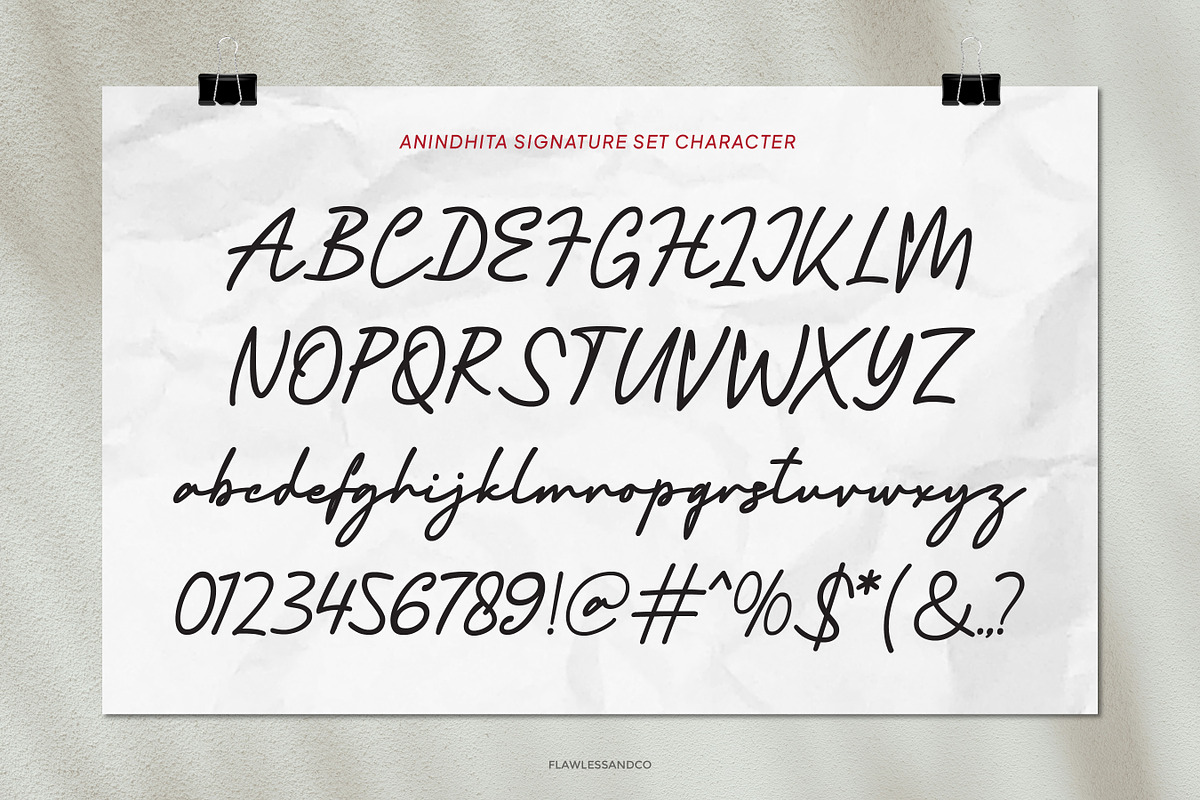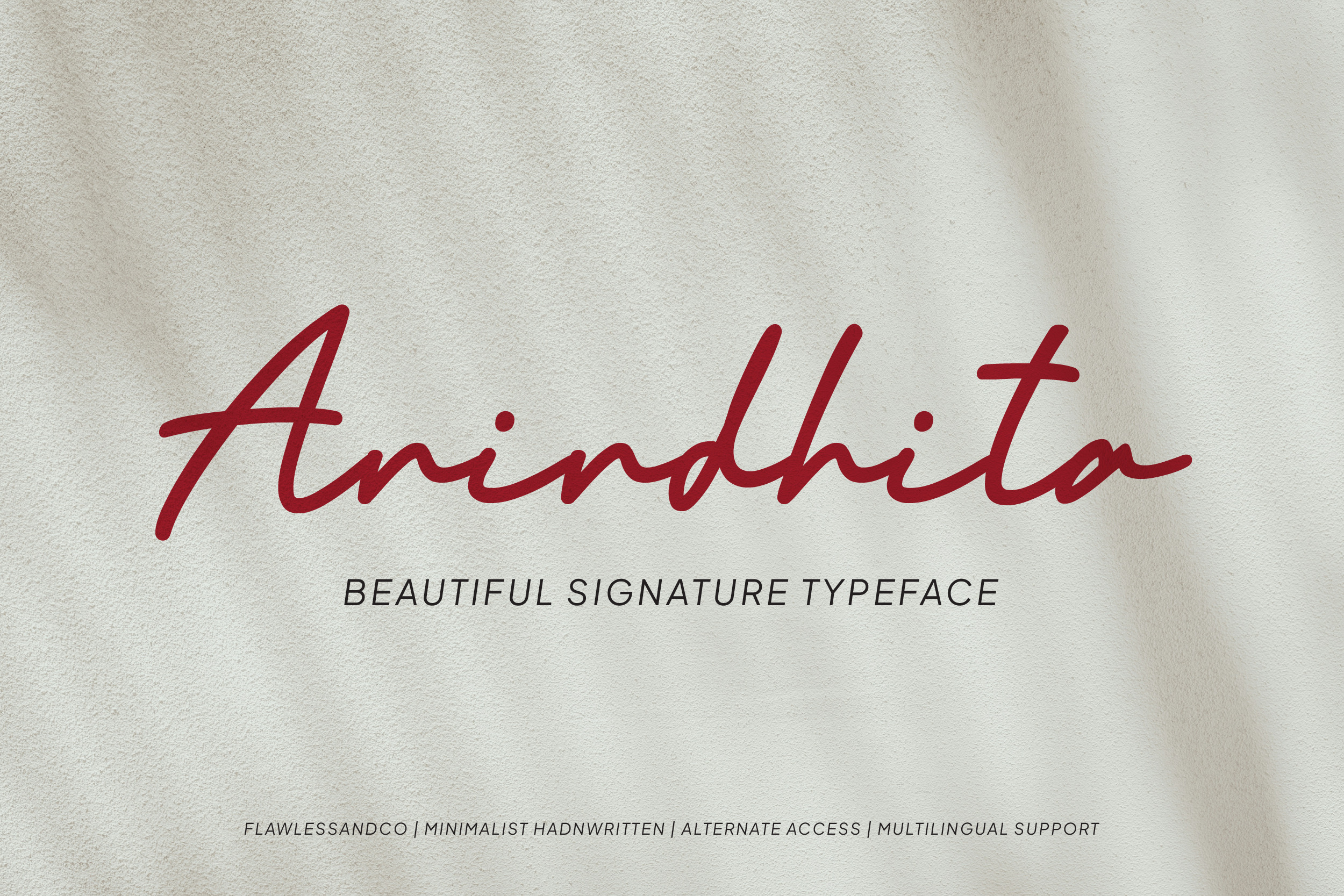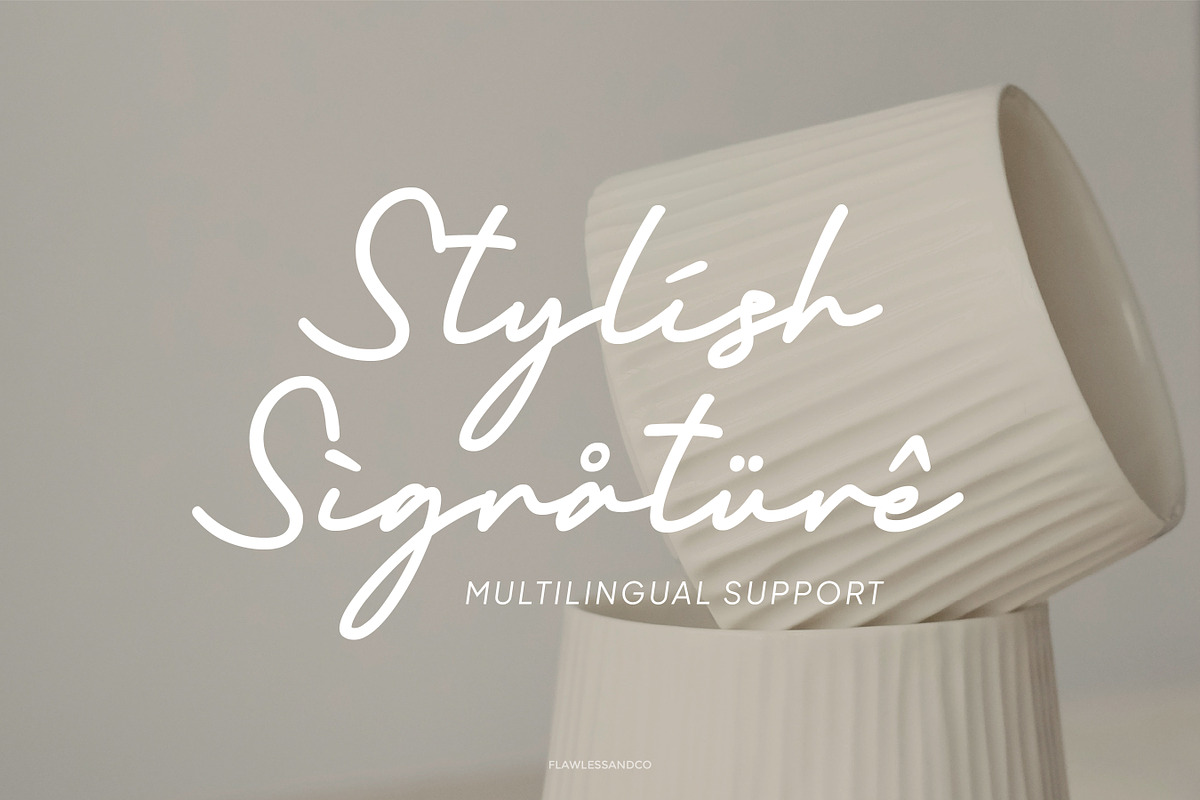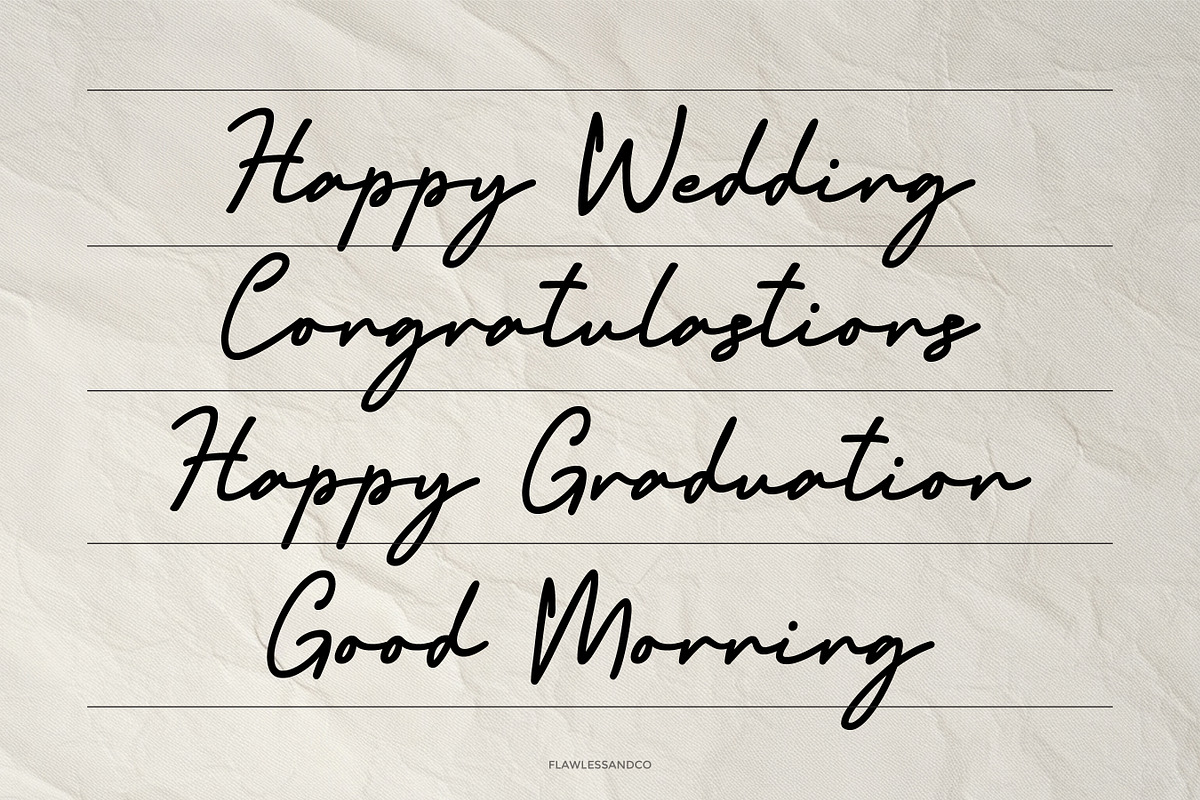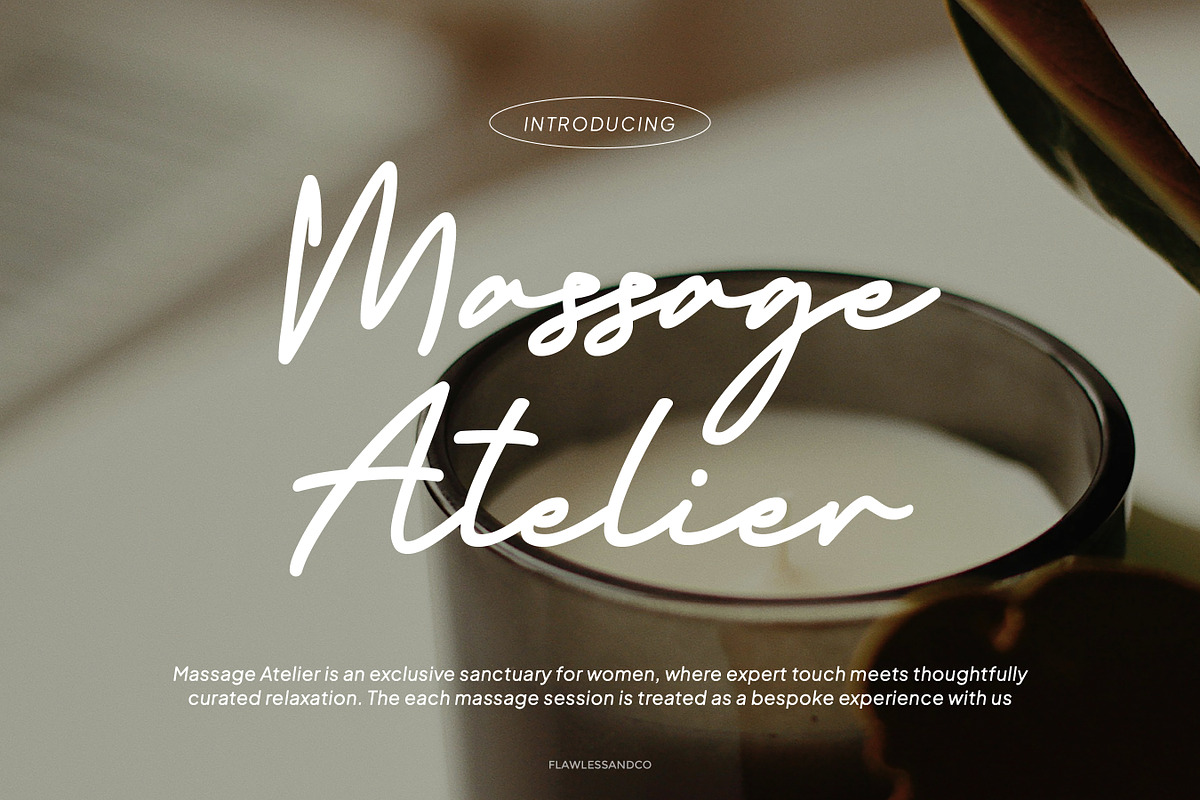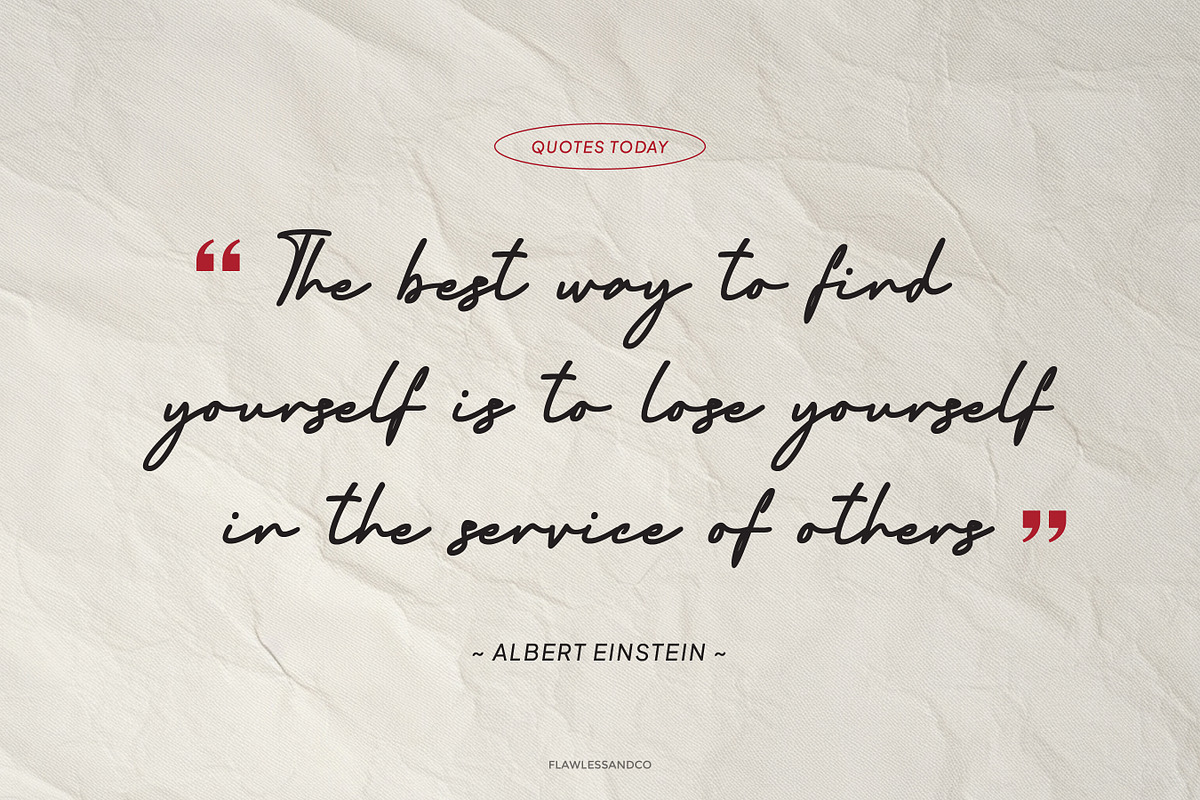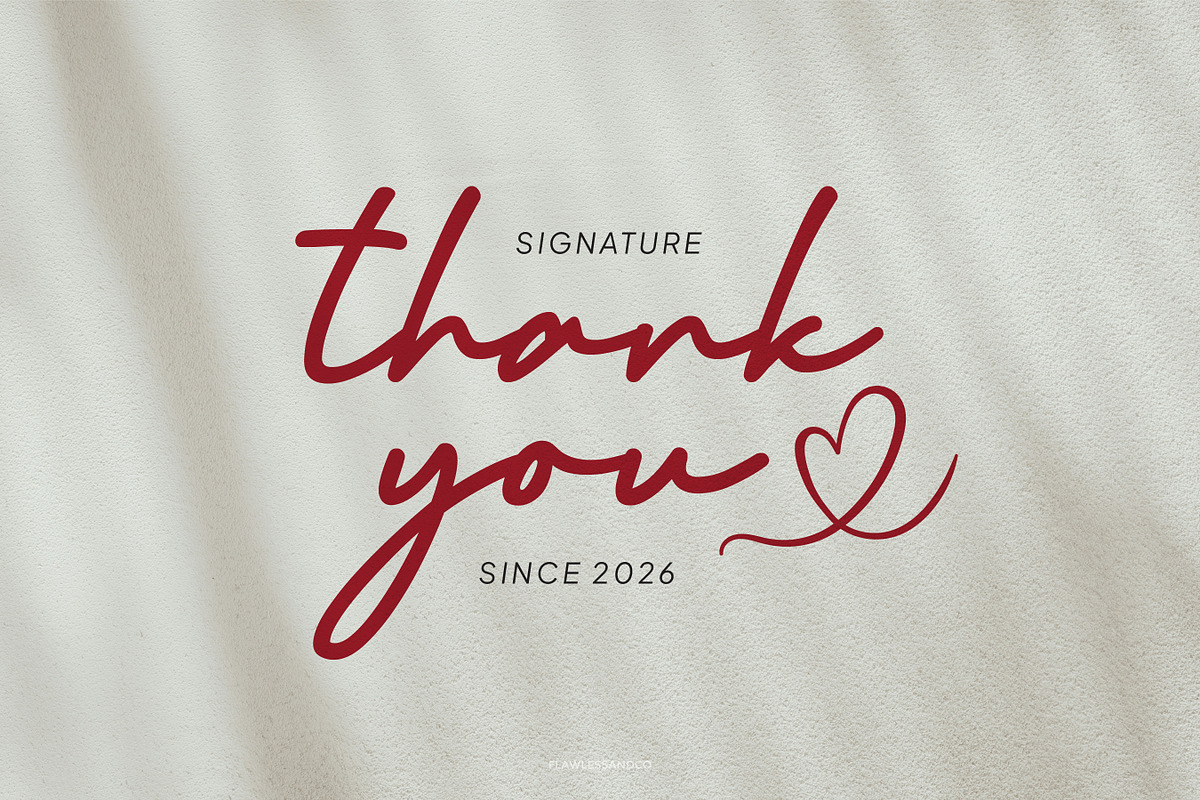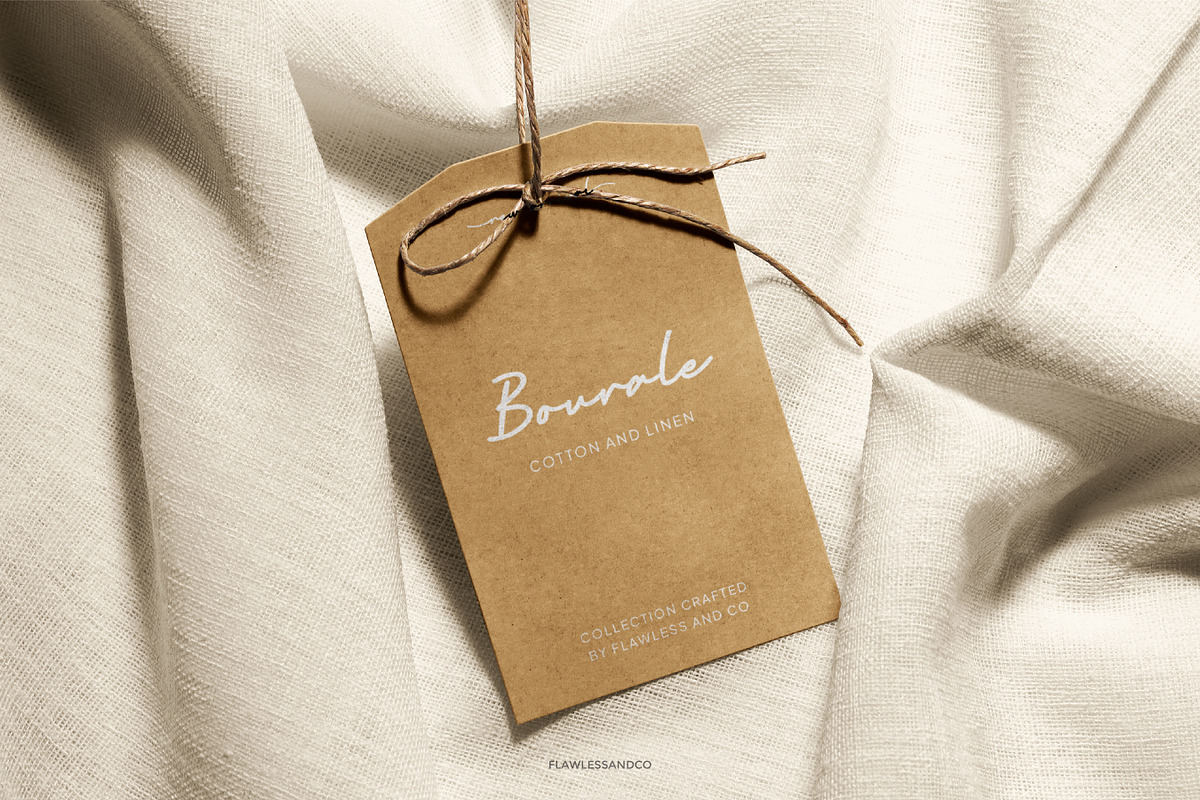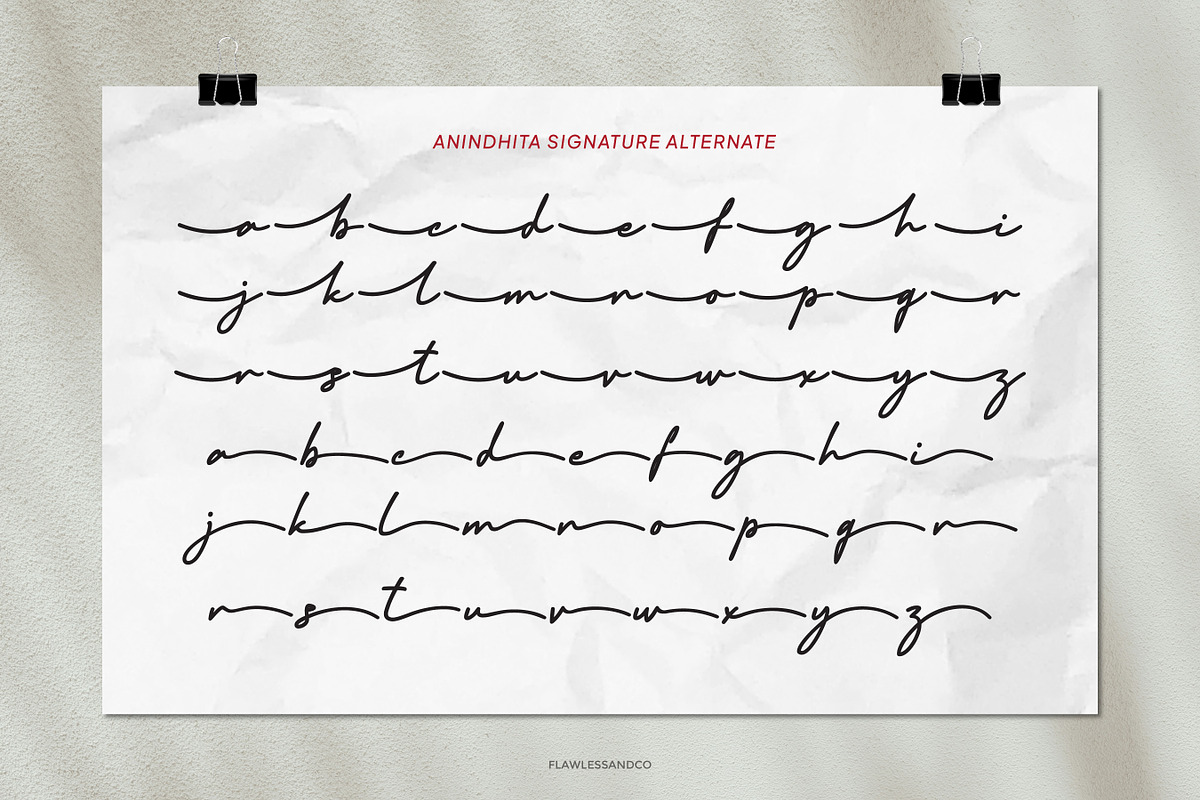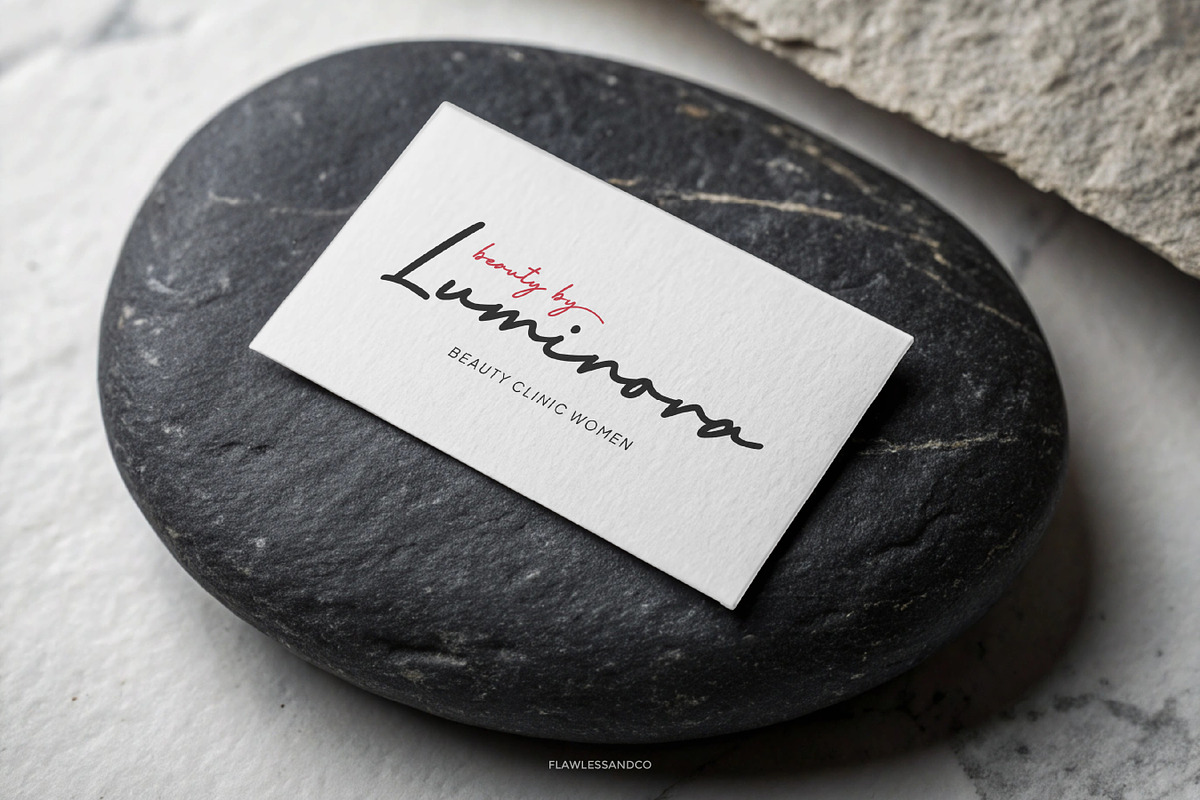
Anindhita - Script Signature Font
Anindhita is a graceful script signature font that captures the natural beauty of handwritten strokes with a smooth and elegant flow. Designed to feel personal and refined, this font brings a modern calligraphy touch with a soft, stylish character. Its fluid curves and balanced rhythm make Anindhita perfect for creating sophisticated and intimate designs, whether for branding or creative projects that require a handwritten feel with a professional finish.
Who Should Use Anindhita?
Anindhita is ideal for designers, creatives, and entrepreneurs who want to add a personal, elegant signature style to their work. It’s especially suited for branding projects that aim to feel authentic, feminine, and luxurious with a handcrafted touch.
Suitable For:
- Signature logos and personal branding
- Wedding invitations and stationery
- Beauty and fashion branding
- Photography watermarks
- Social media content and quotes
- Luxury packaging design
- Blog headers and website typography
- Elegant handwritten-style designs